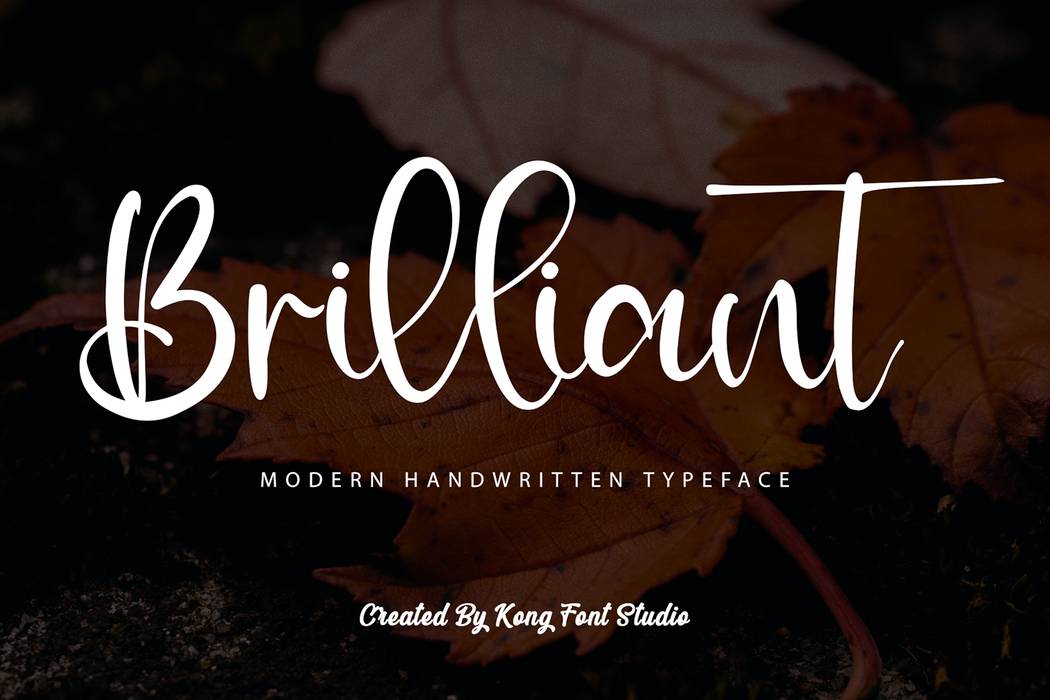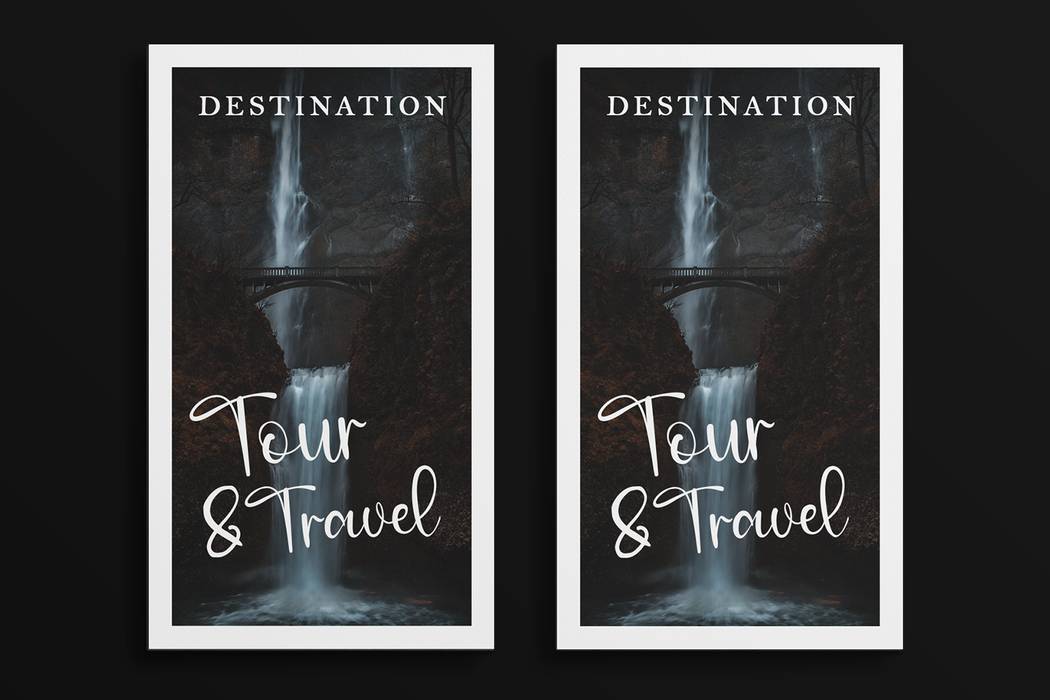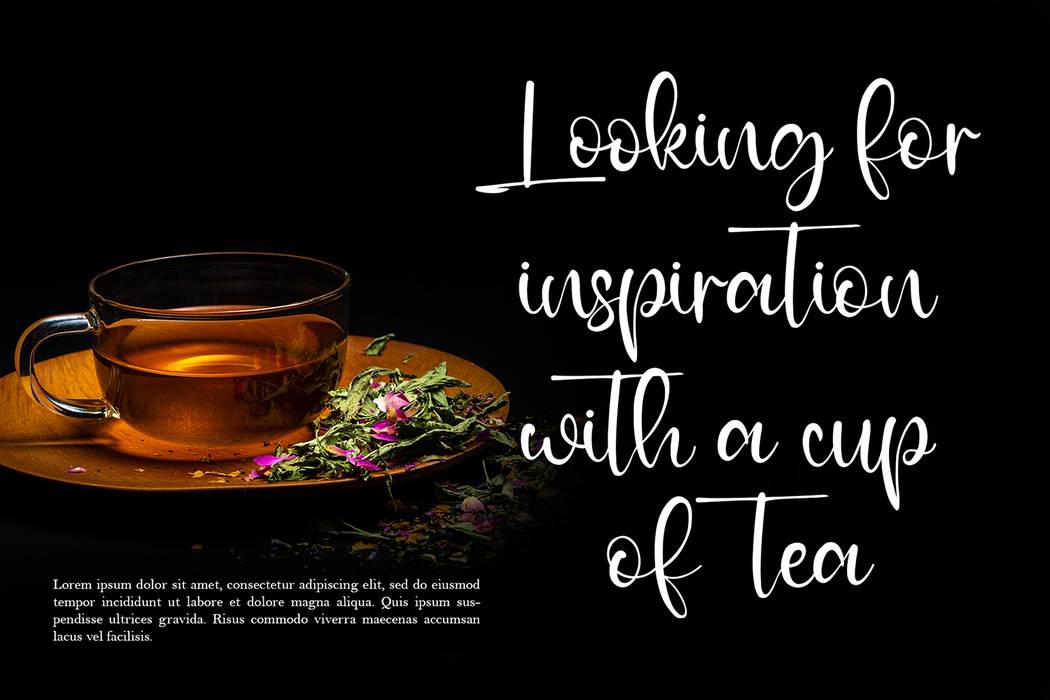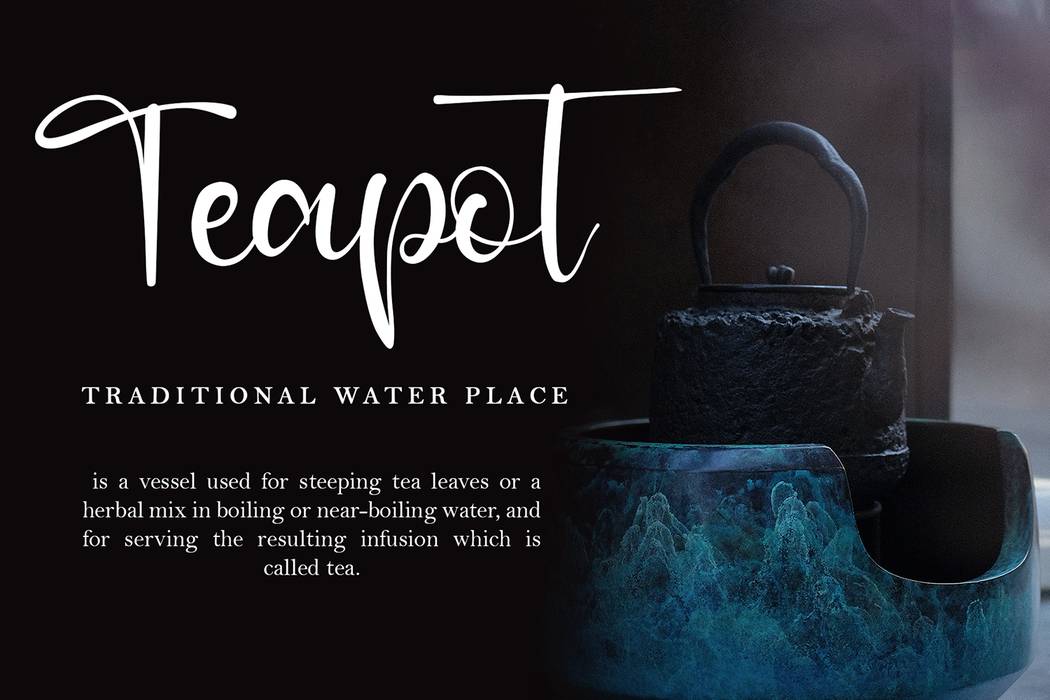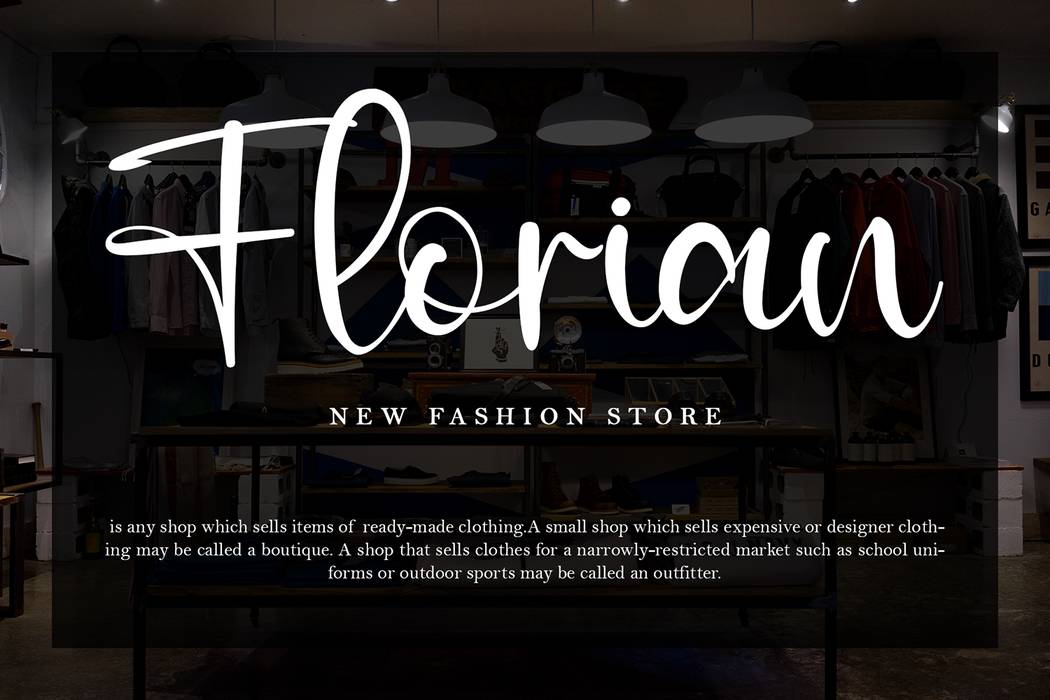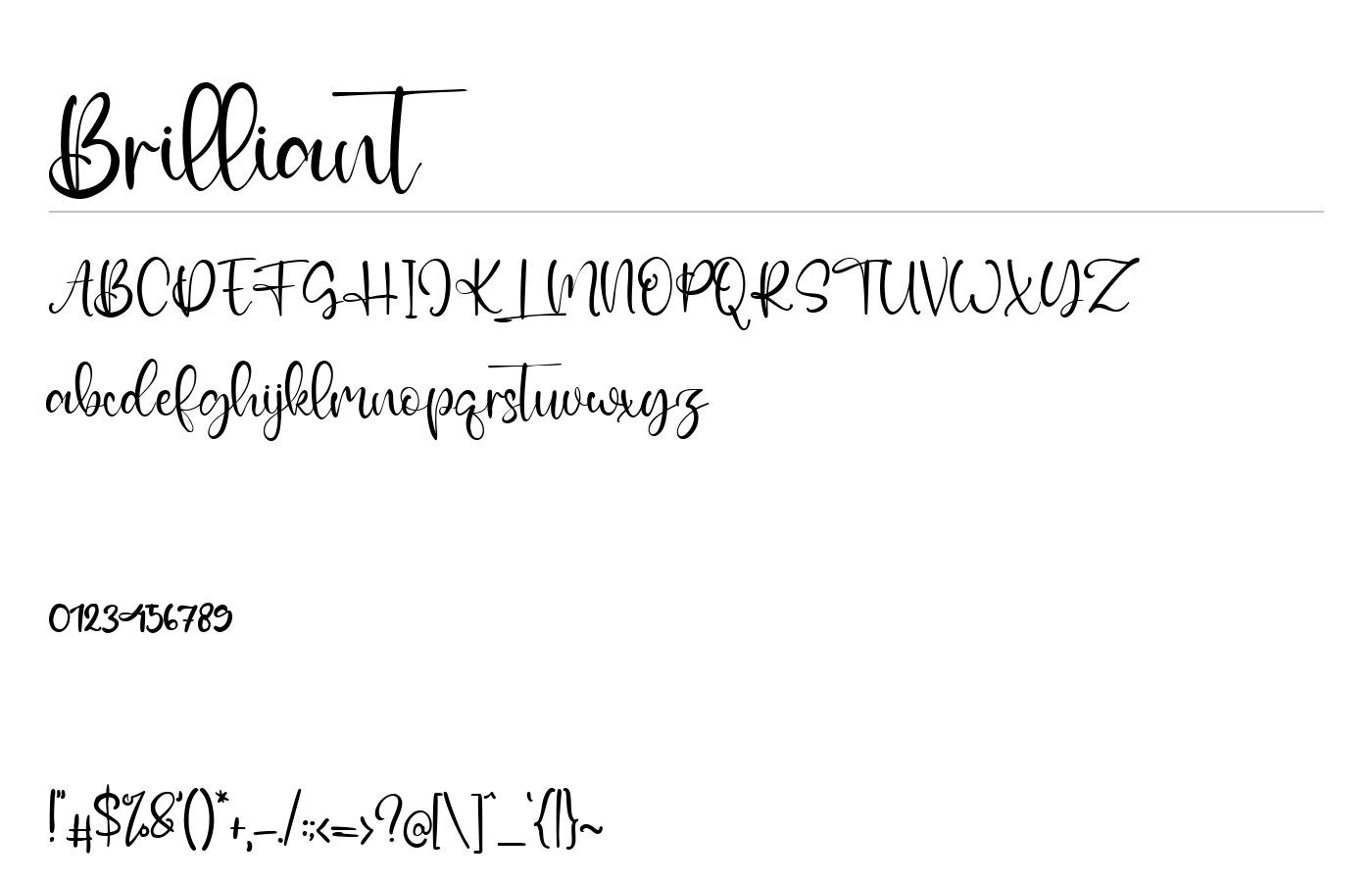
Brilliant Font is a playful and elegant script typeface with a lively, handwritten feel. It features slender, flowing strokes with a moderate contrast and a mix of looping and sharp details, making it perfect for creative and personal design projects such as invitations, logos, and branding that aim for a stylish yet approachable vibe. This font works well in headline or decorative use, adding a charming and unique touch wherever it’s applied.
Brilliant Font
About Brilliant Font
| Font family | Brilliant Font |